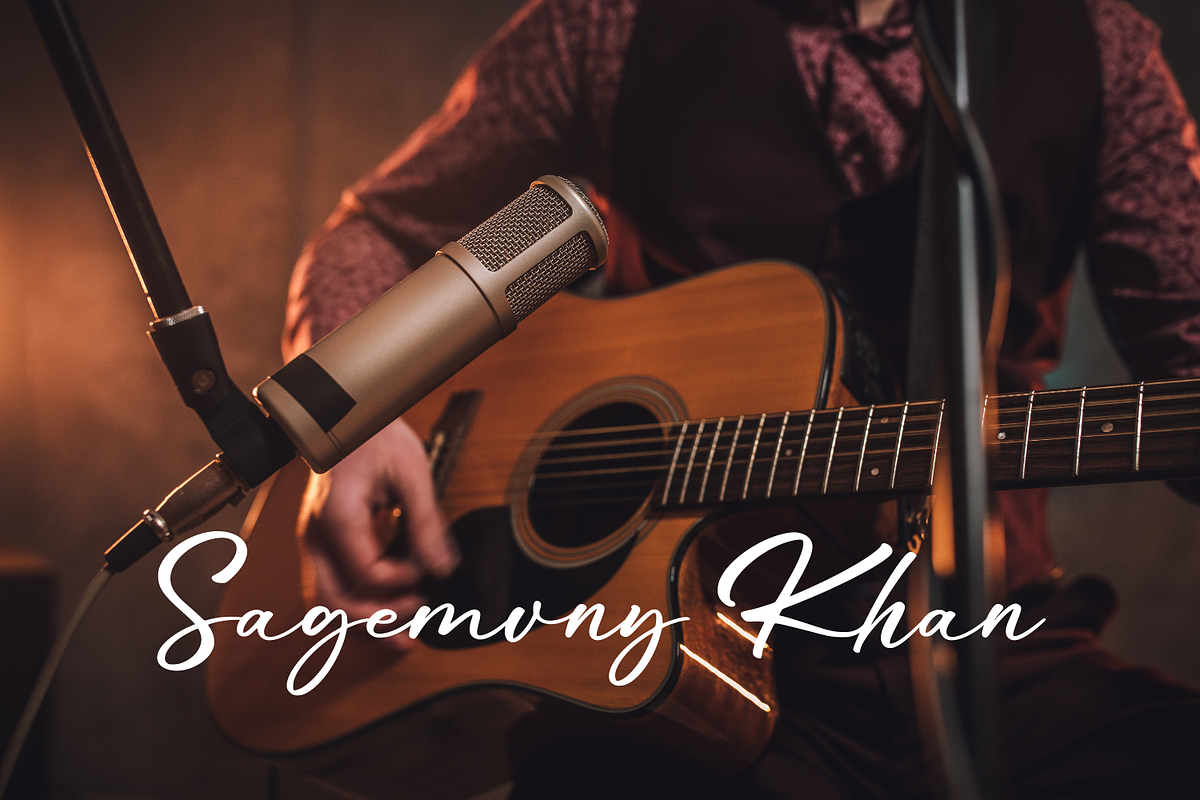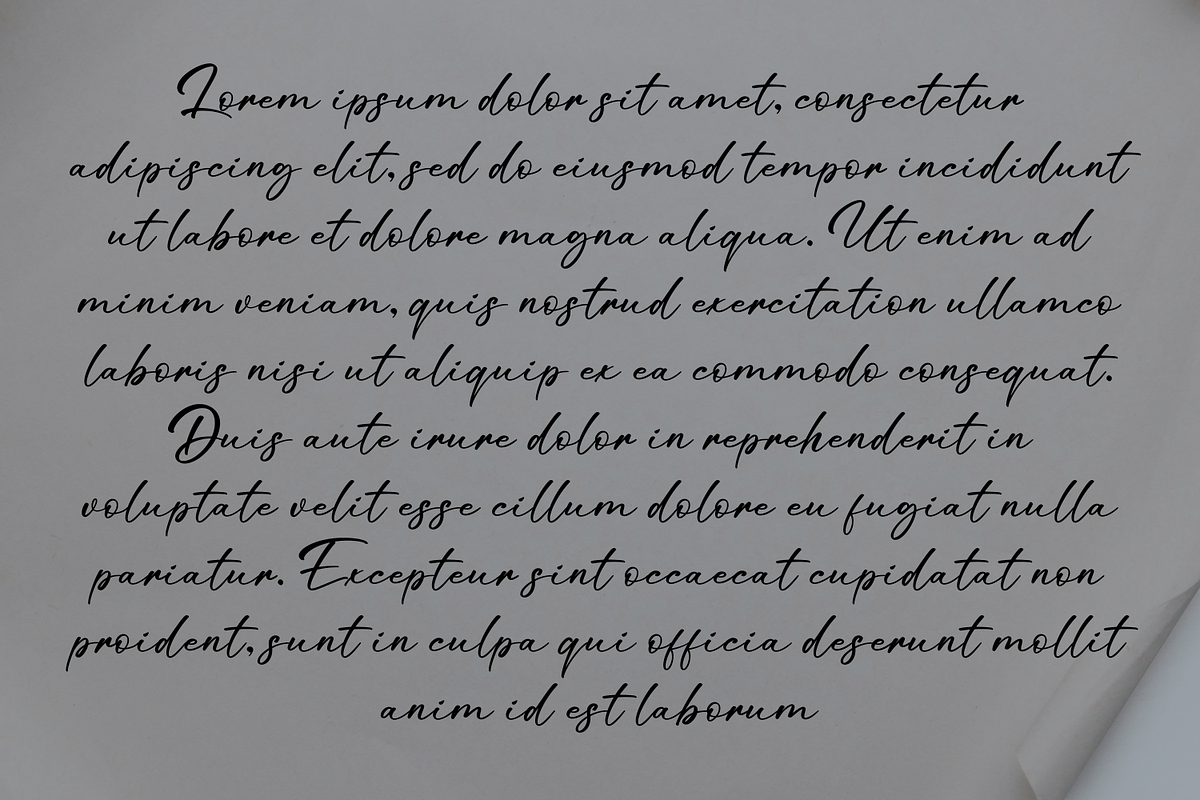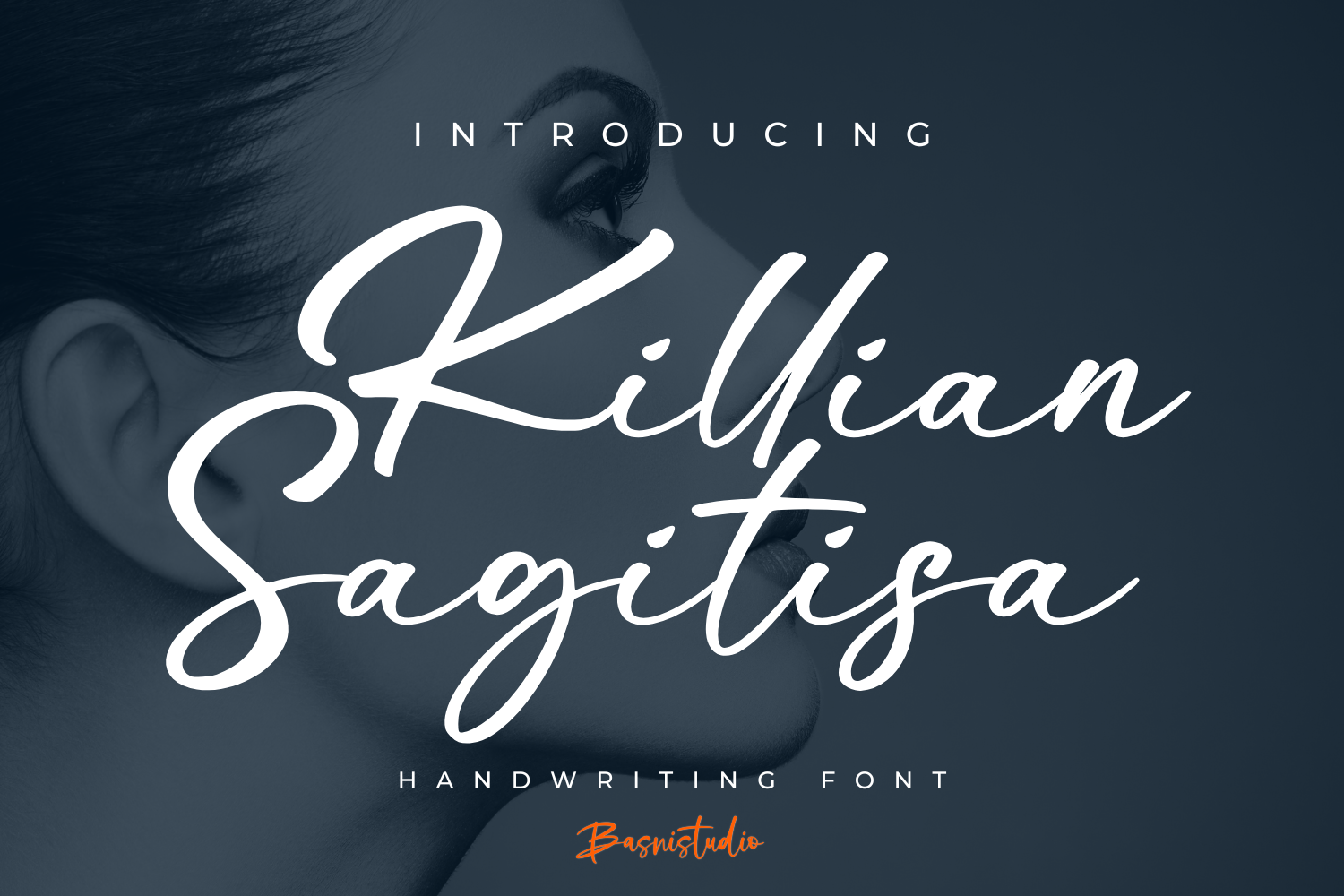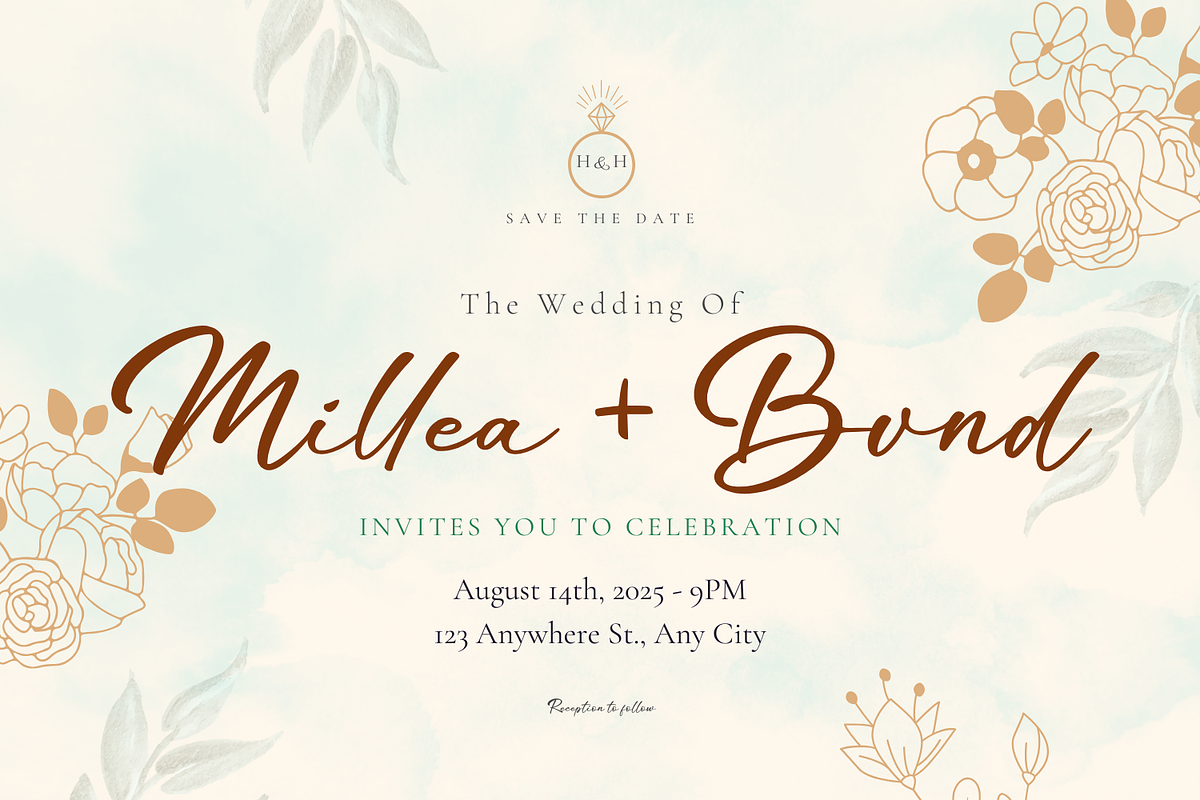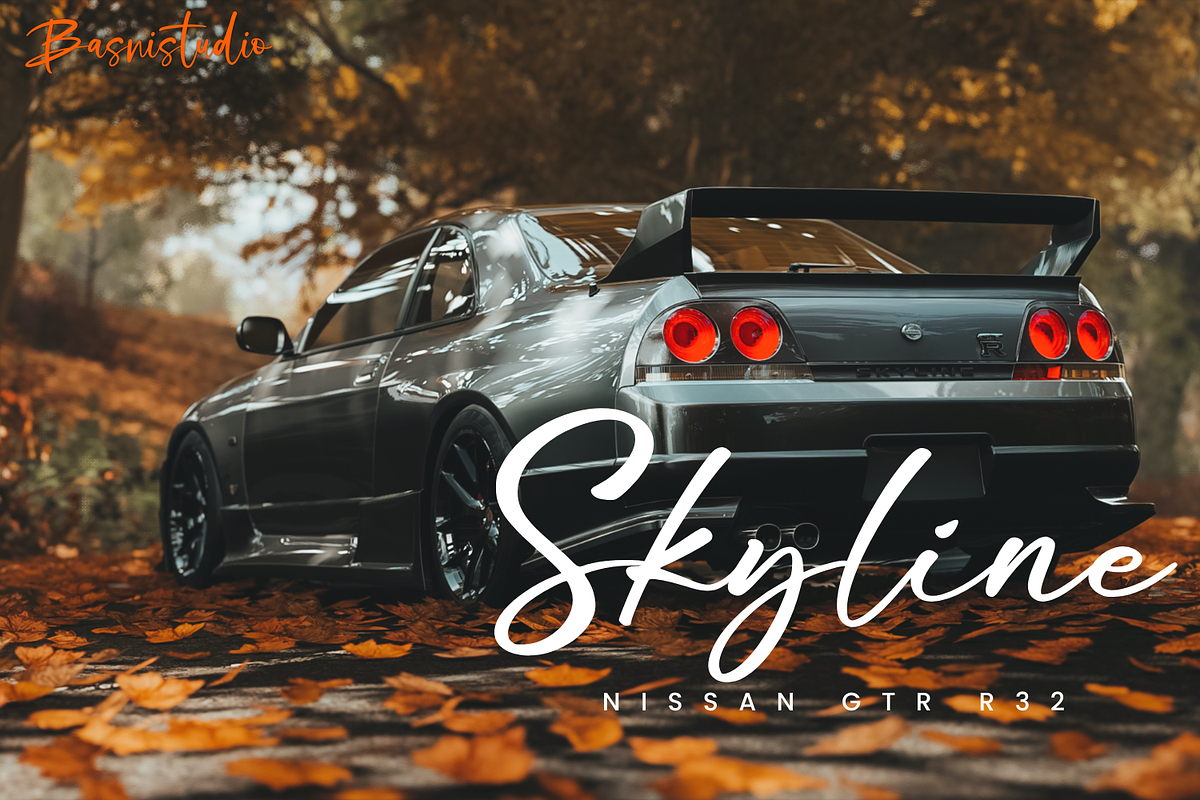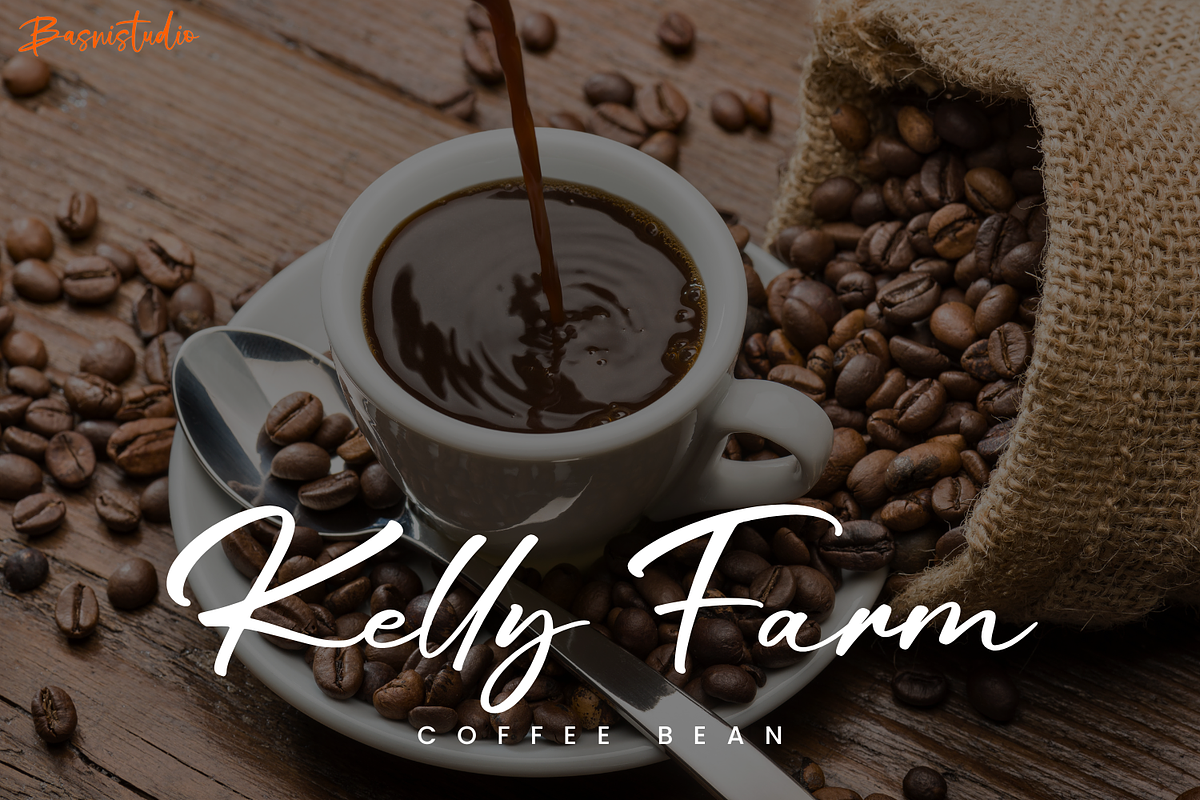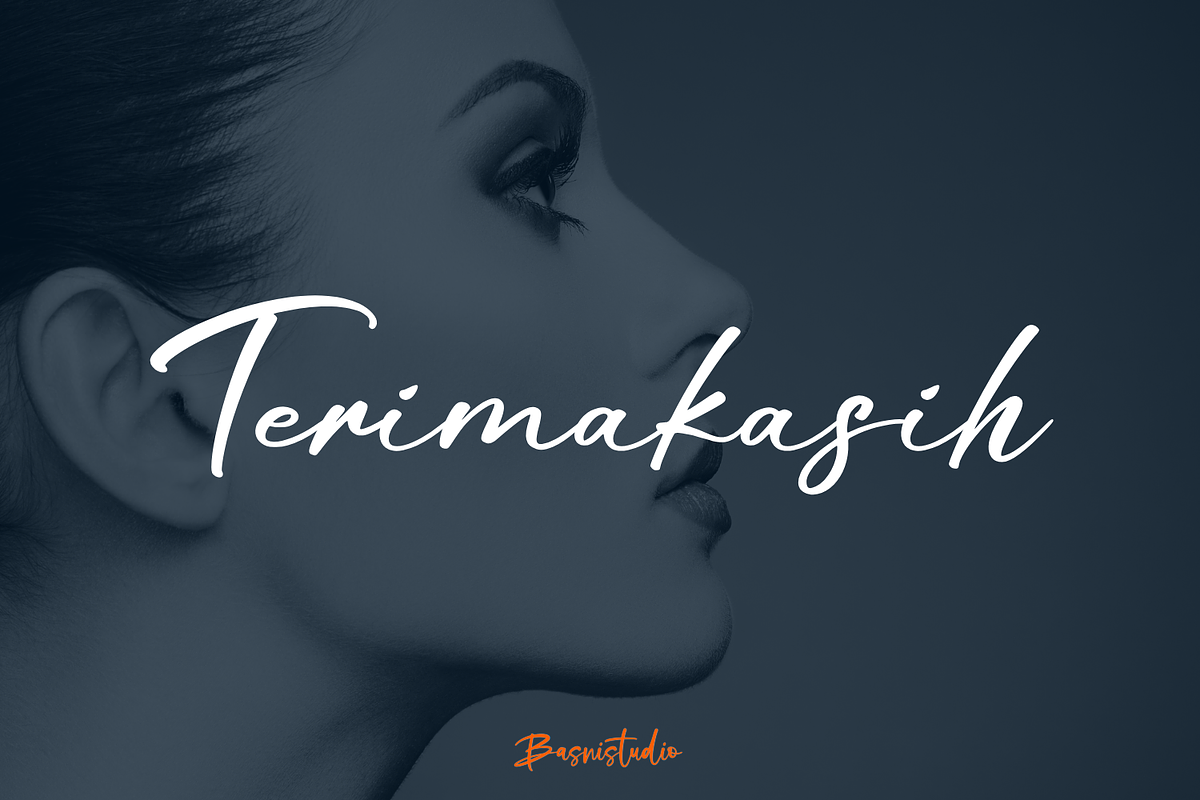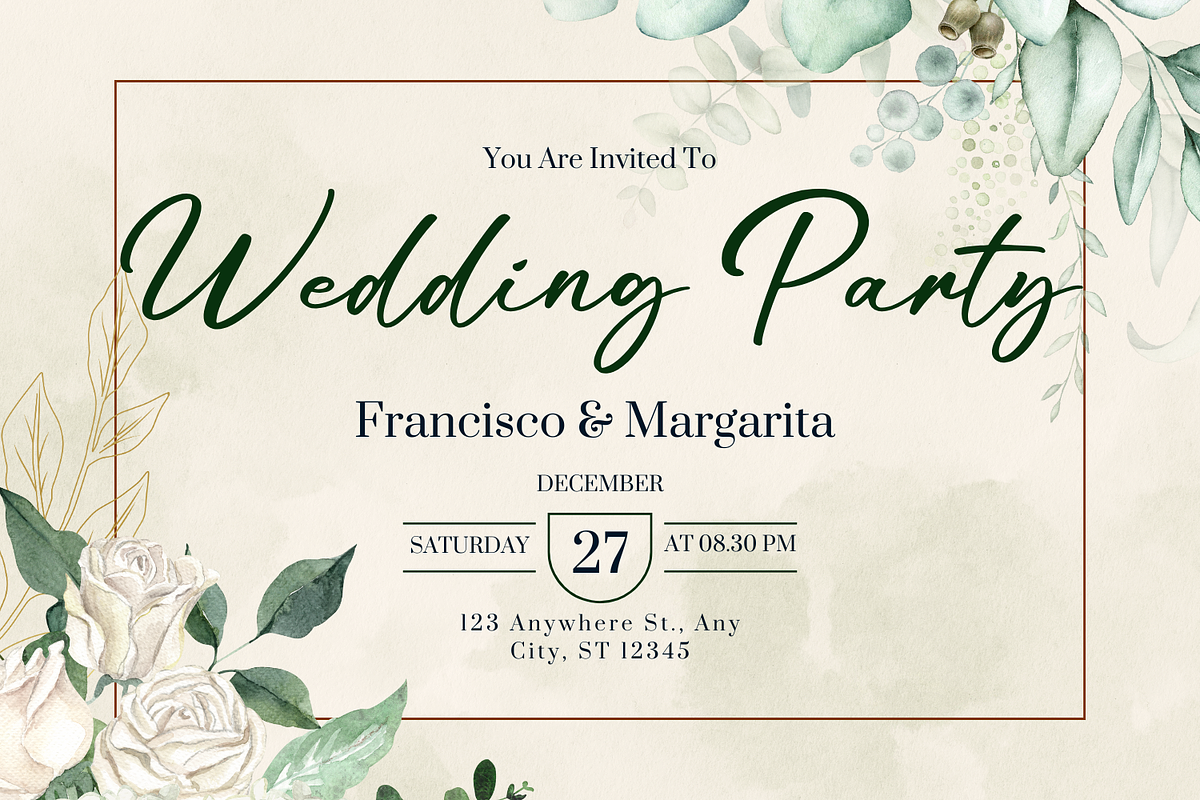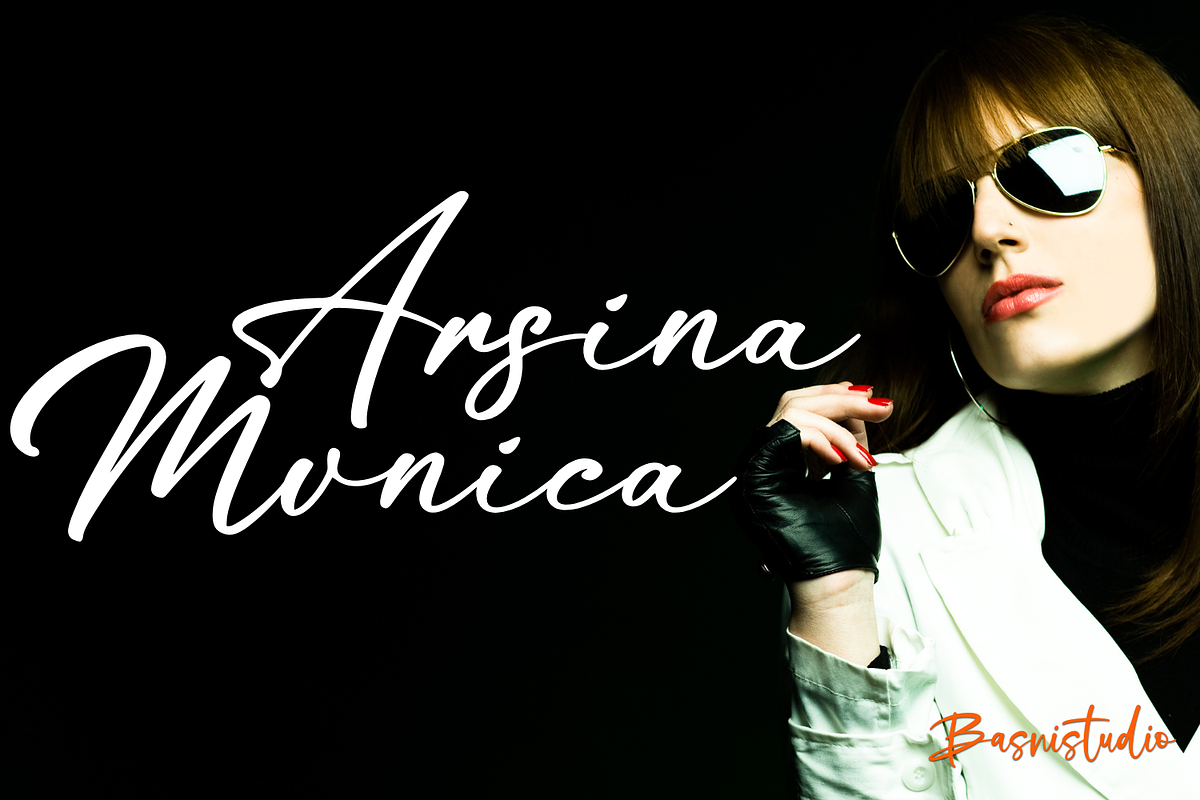
Killian Sagitisa Handwriting Font
Introducing Killian Sagitisa Handwriting Font
Killian Sagitisa Handwriting Font , made by Naturaly Handwriting & Authentic Style.
This Font is perfect for an magazine, clothes, quotes, and so much more. This font is PUA encoded, which means you can access all of the glyphs.